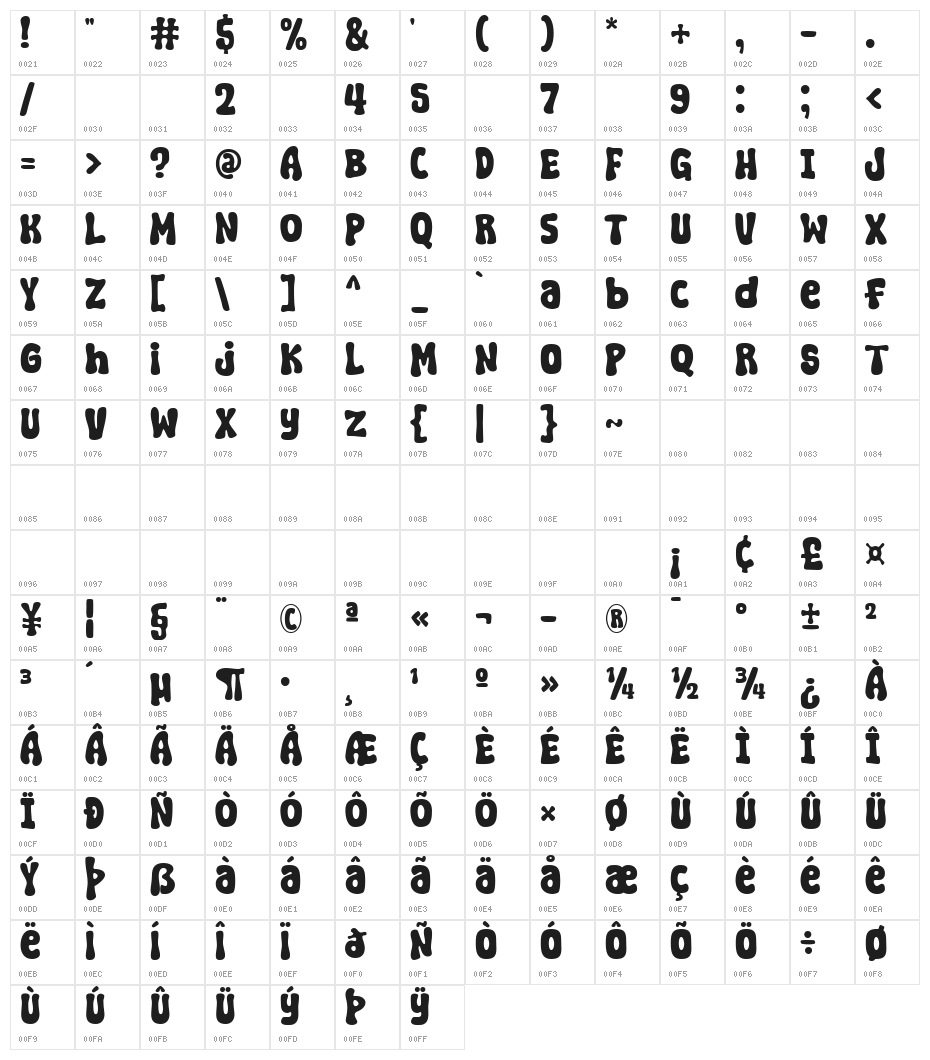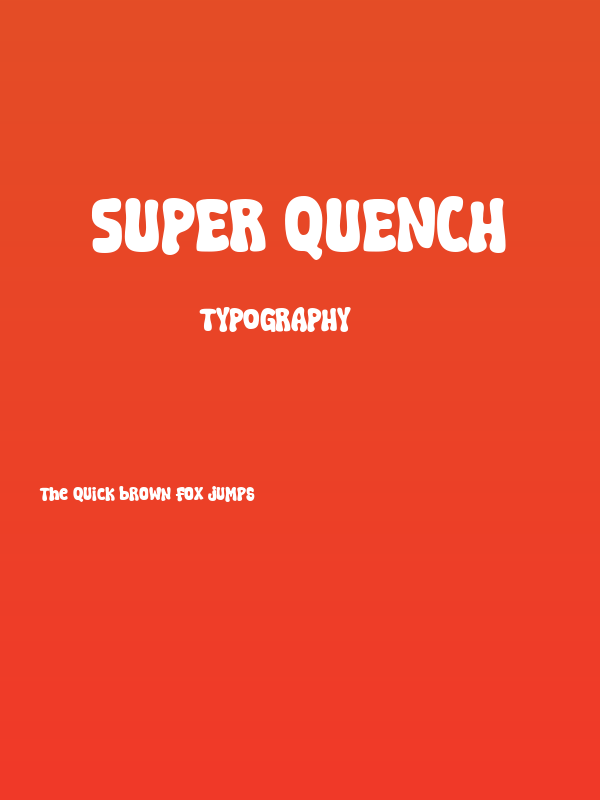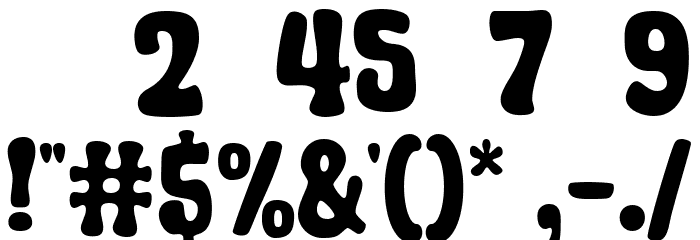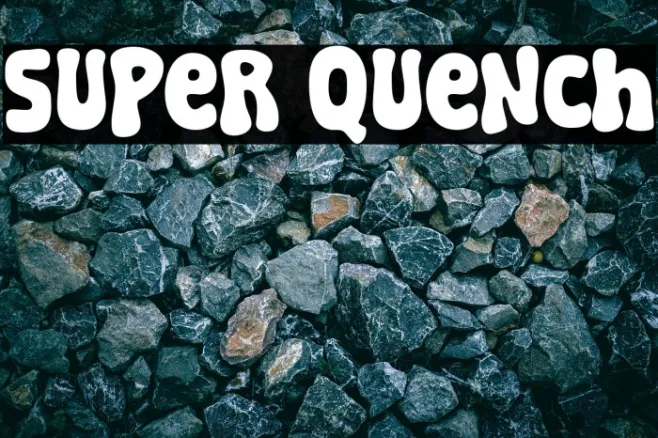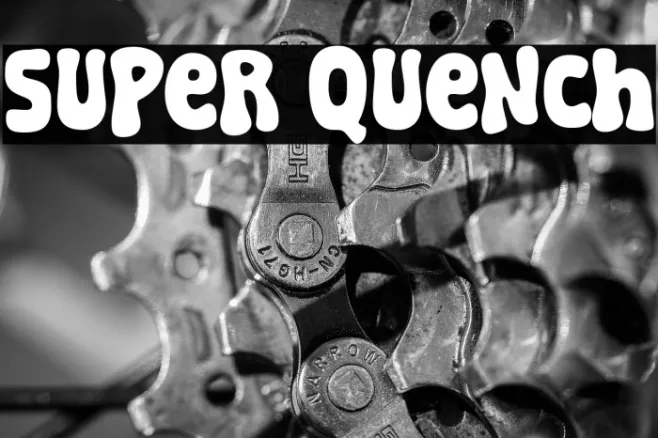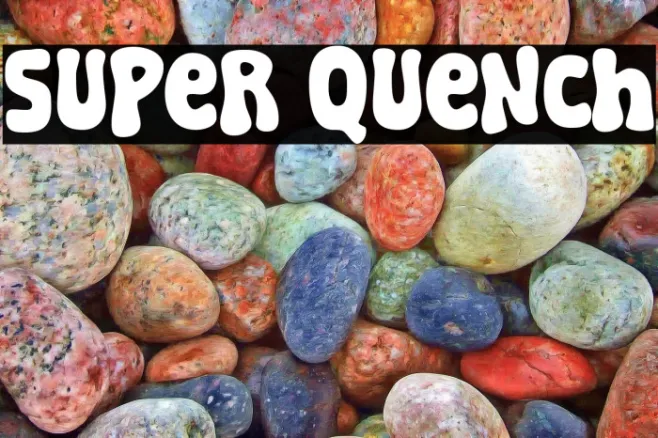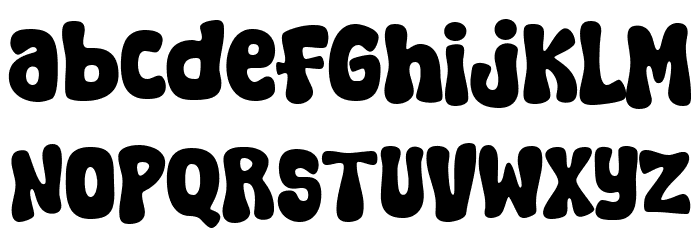
Super Quench Font
Super Quench Description
This playful and bold font features a bubbly, rounded style with thick strokes that give it a fun and energetic appearance. The characters are slightly irregular, adding a whimsical touch to the overall design. The uppercase and lowercase letters maintain a consistent weight, while the numbers and special characters follow the same lively aesthetic. This font's unique style makes it stand out, making it ideal for projects that require a sense of joy and creativity.
| Overall Style | Playful, Energetic |